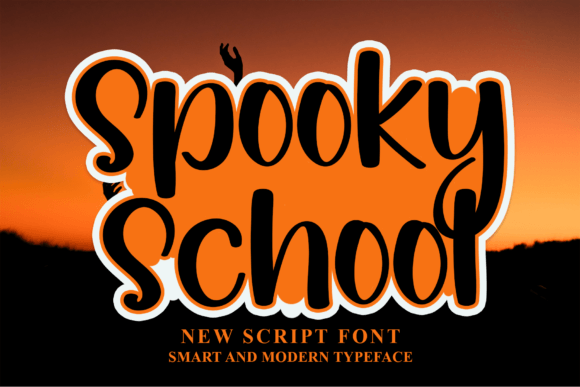
Immerse yourself in the enchanting world of Spooky School, a script font family that exudes charm and elegance. Designed by the esteemed Inermedia STUDIO, this captivating font draws inspiration from timeless calligraphy, resulting in a contemporary masterpiece that will elevate your projects to new heights.
With its balanced and varied strokes, Spooky School is a versatile font that seamlessly adapts to a wide range of design styles. Its carefully crafted characters possess an undeniable charm that instantly captures the attention of the viewer, leaving them spellbound.
Step into a world of boundless creativity with Spooky School. This font is the perfect choice for interior designers, calligraphers, and graphic artists seeking to add a touch of sophistication to their designs. Whether you're creating wedding invitations, posters, logos, or social media graphics, Spooky School will transform your ideas into captivating works of art.
Unlock the full potential of Spooky School with its PUA encoding, which grants you effortless access to its extensive range of glyphs and ligatures. Unleash your imagination and explore the endless possibilities waiting to be discovered within this remarkable font family.
Don't settle for ordinary fonts. Embrace the allure of Spooky School and embark on a creative journey like no other. Let your imagination soar as you craft breathtaking designs that leave an unforgettable impression. Spooky School is more than just a font; it's an invitation to let your creativity run wild and create designs that speak to the soul.
Step into the realm of Spooky School today and experience the magic of breathtaking typography. Let your designs take center stage and captivate your audience with this exceptional font family. Spooky School is not just a font; it's an artistic masterpiece that will transform your projects into true works of art.